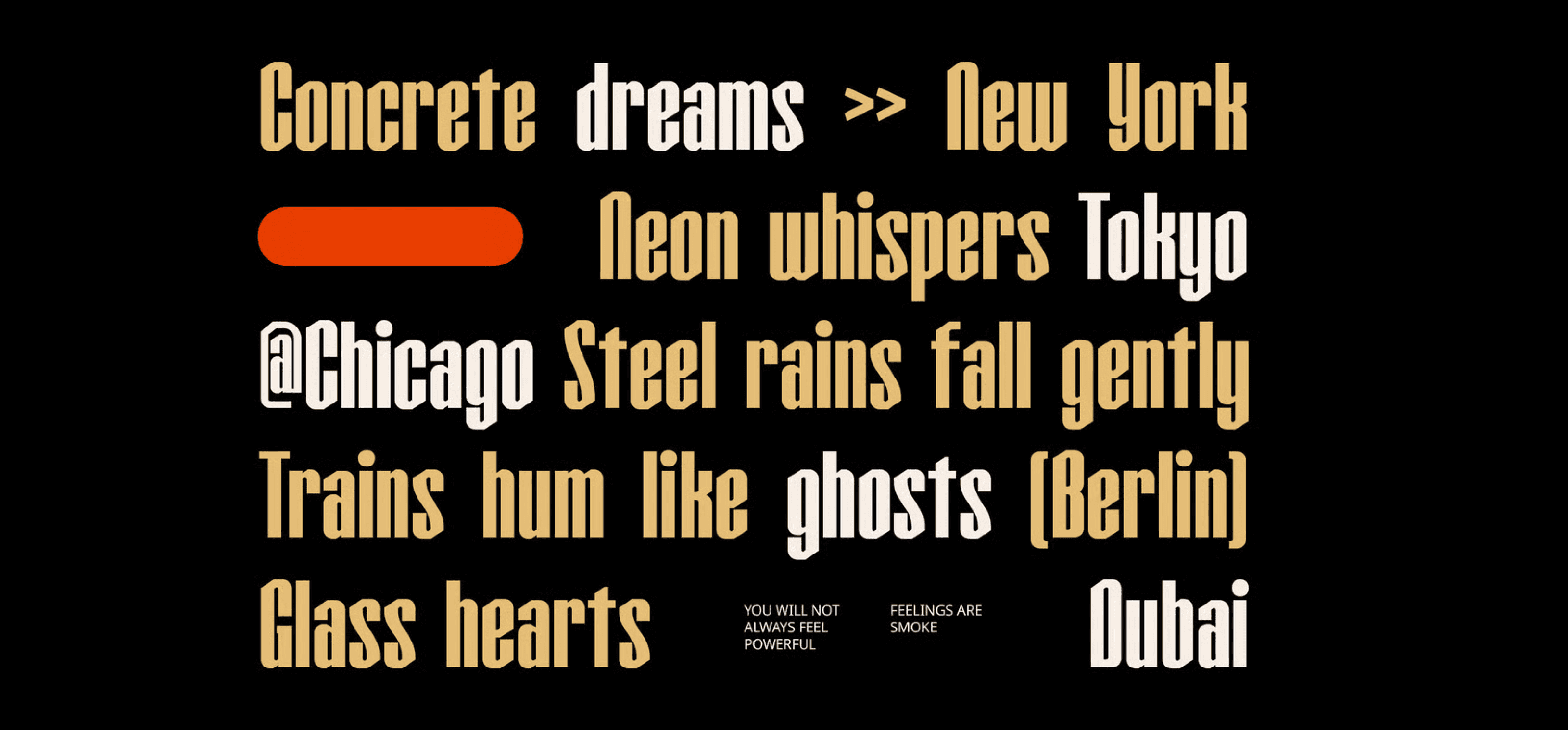
CS Glister – Bold Font: Classic Elegance with a Modern PunchBold and Condensed for Maximum Impact CS Glister is a modern display sans serif font with a bold and condensed structure that commands attention. Its narrow yet dense form allows for a powerful visual presence, making it ideal for headlines, posters, packaging, and logos where space is limited but impact is essential.